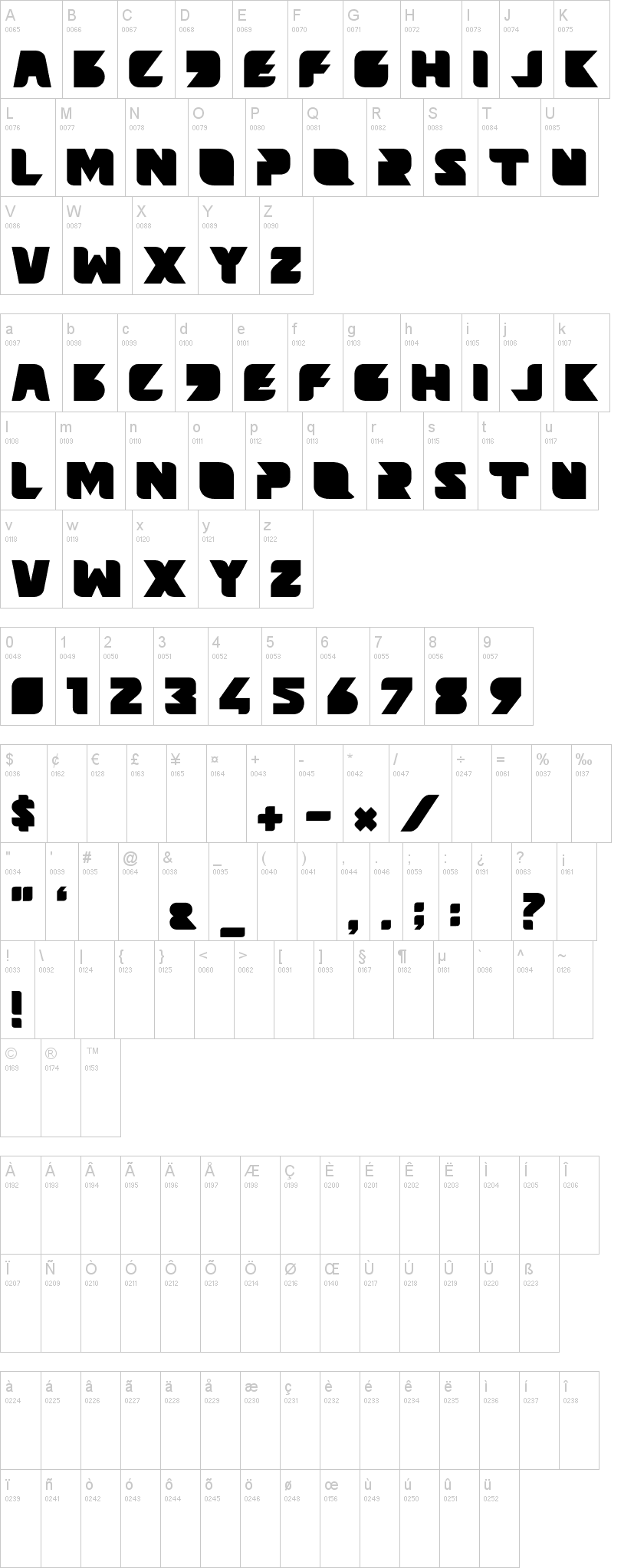
Шрифт Beams
Beams is a capital typeface with a futuristic look. It was originally designed for poster headlines and other headings (mainly with futuristic themes) for the designers personal use. Beams is now open to all and free for use.
Designer: Altay Dagistan